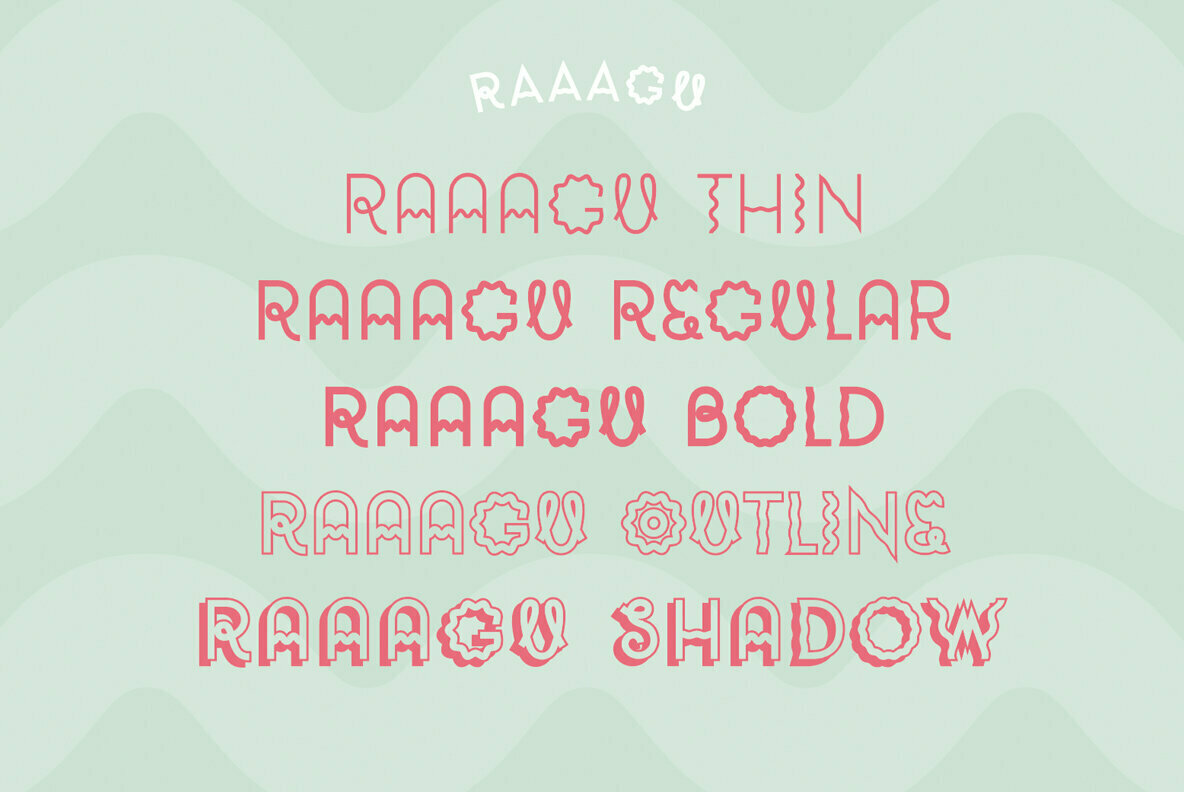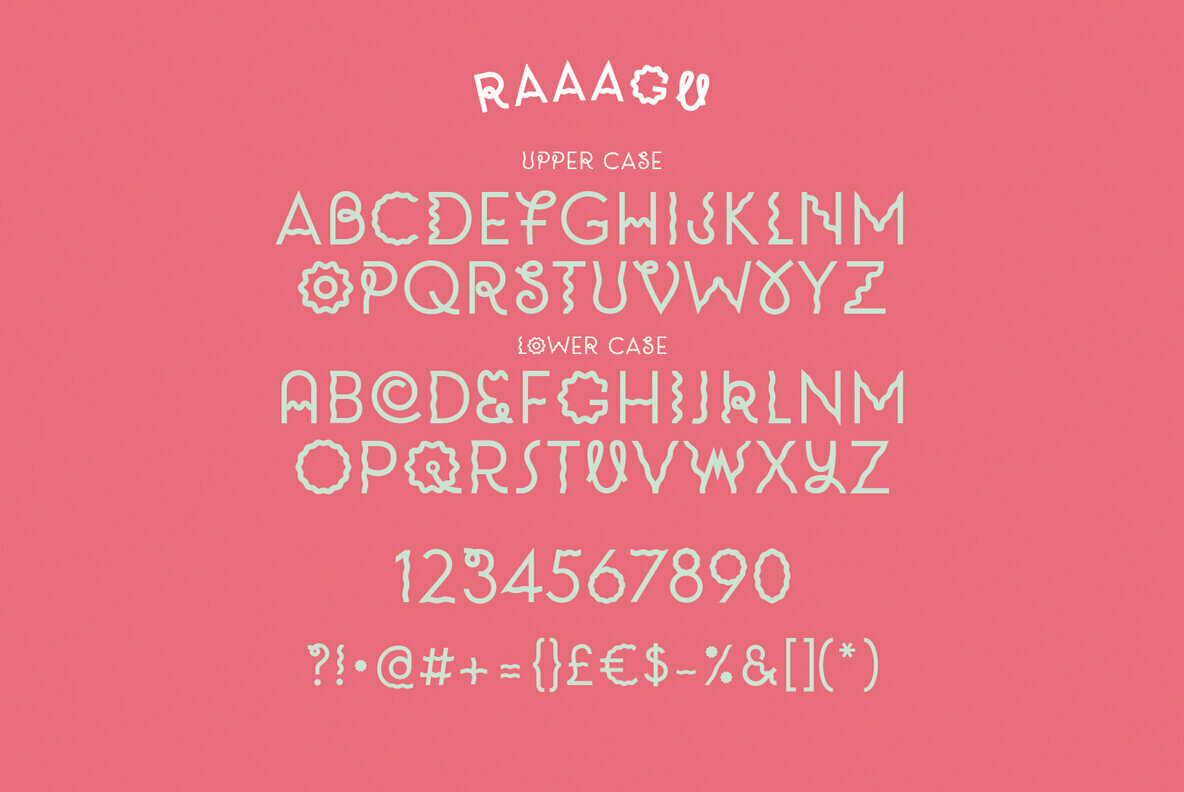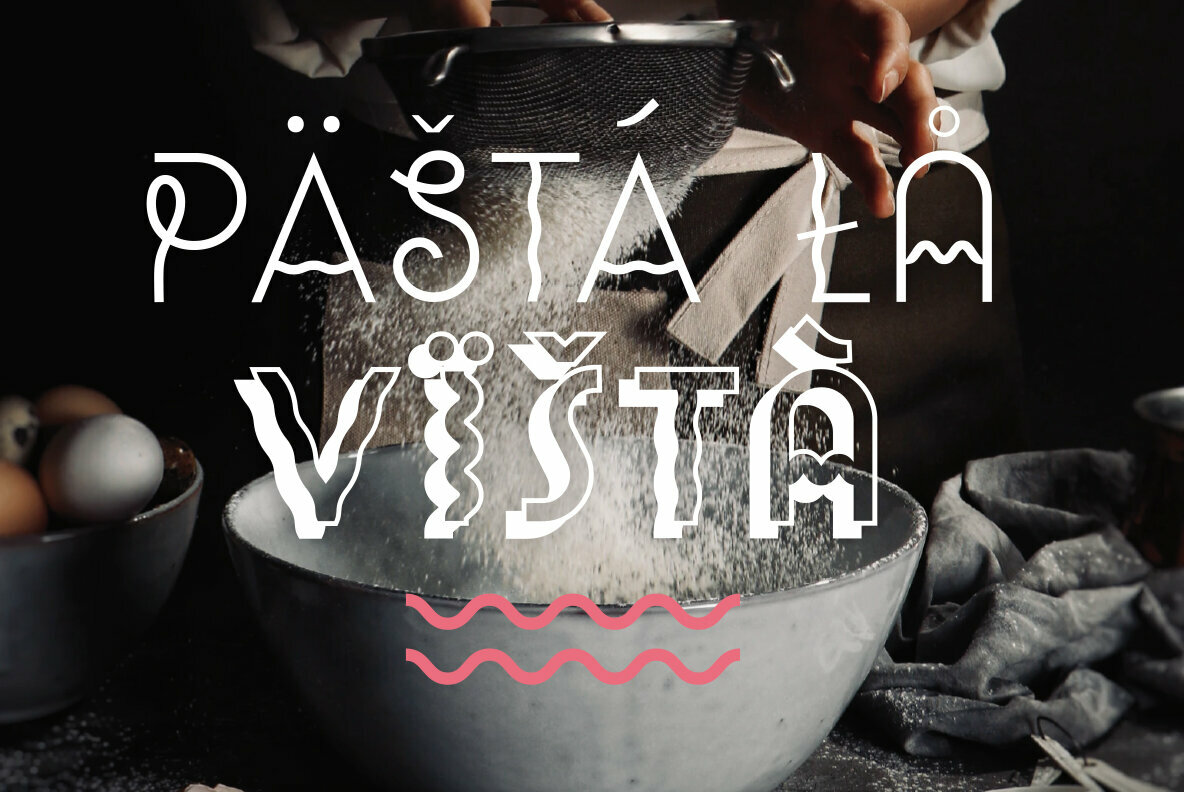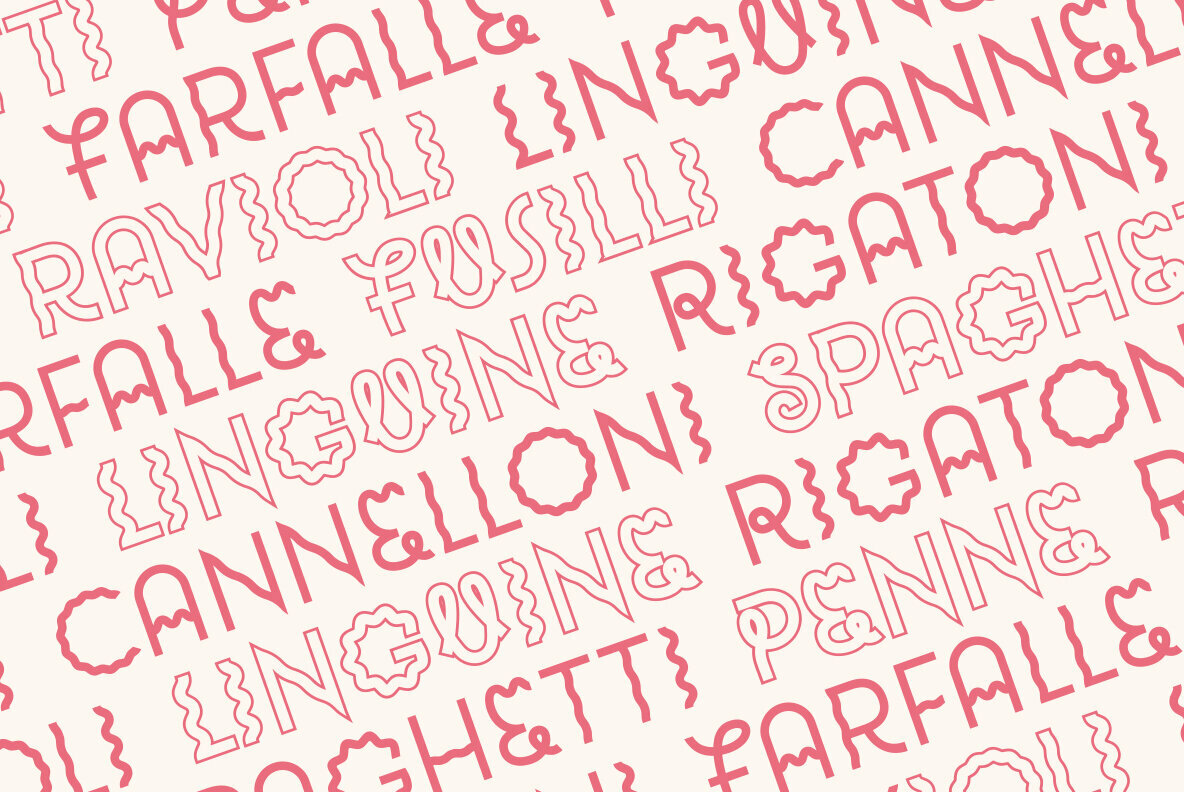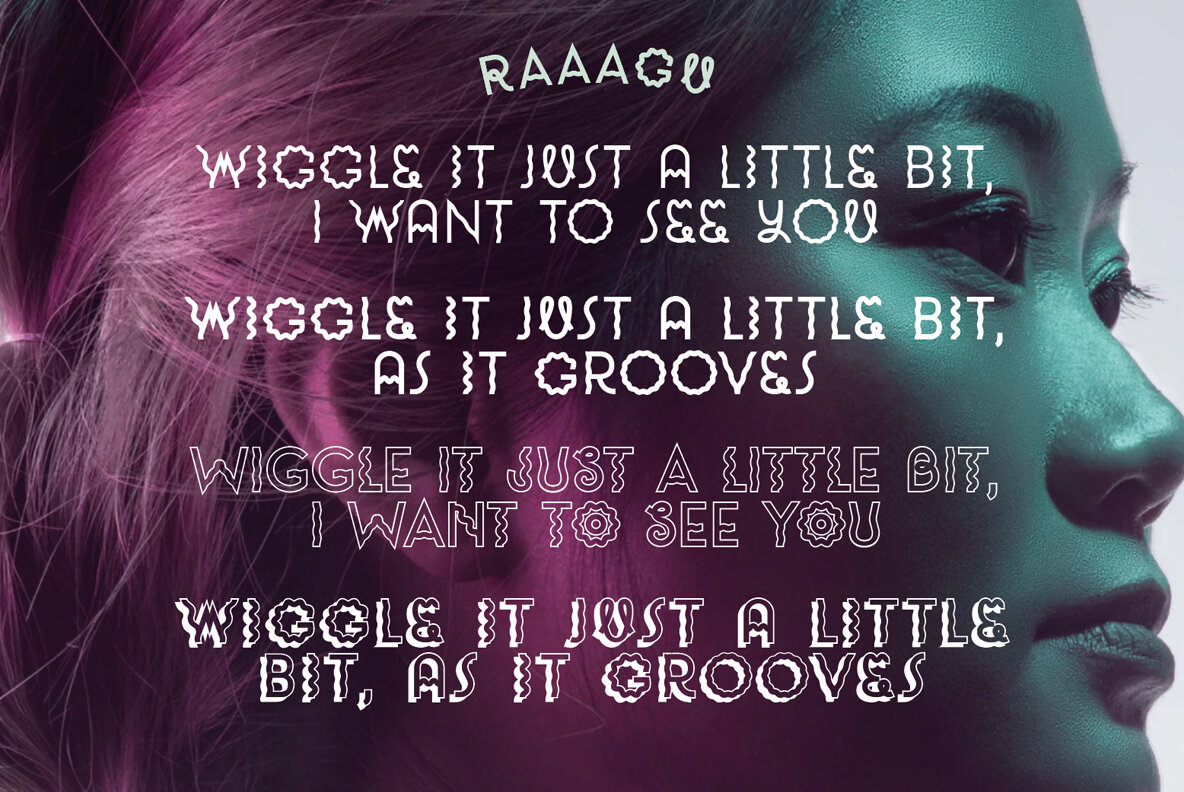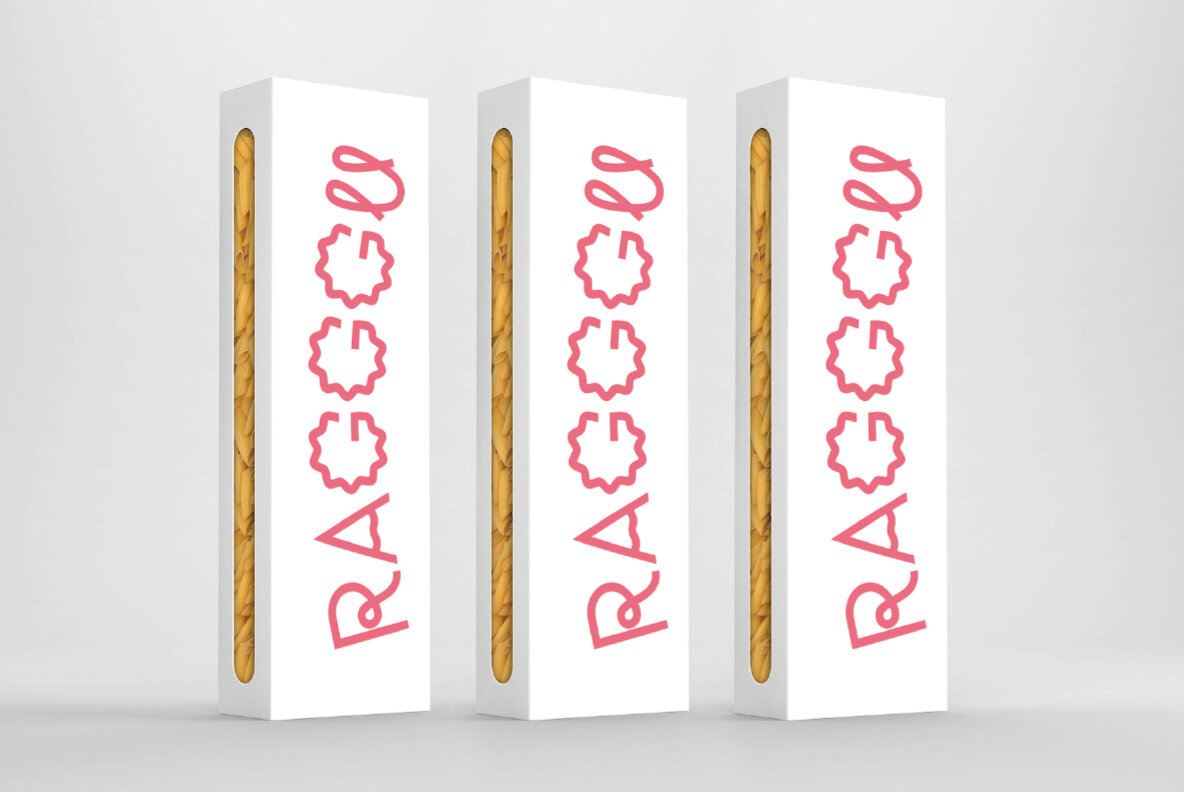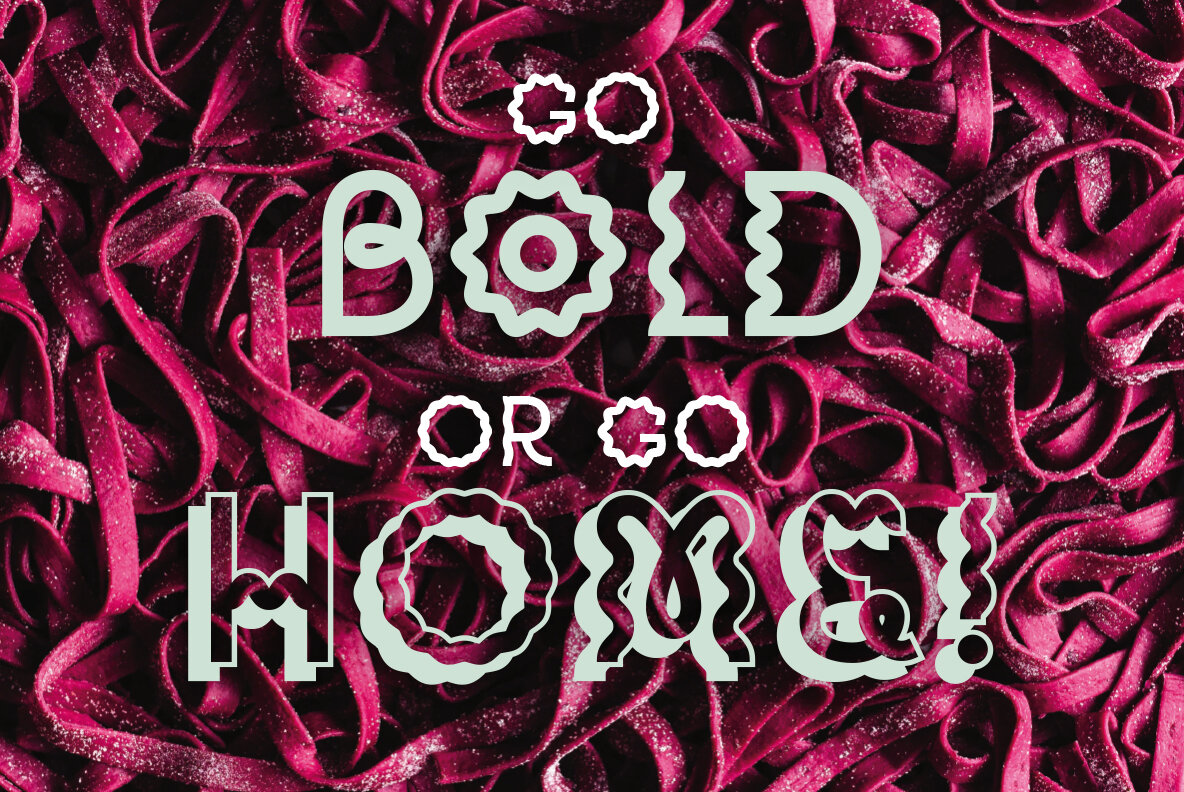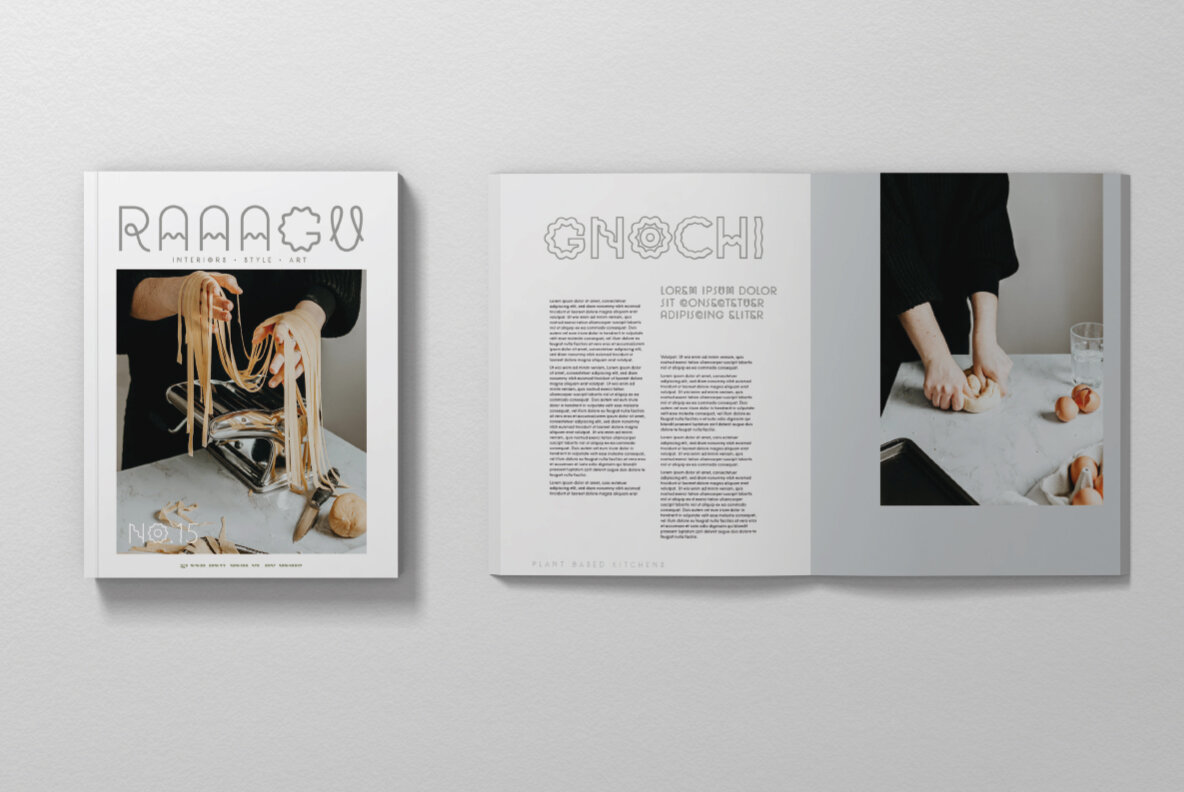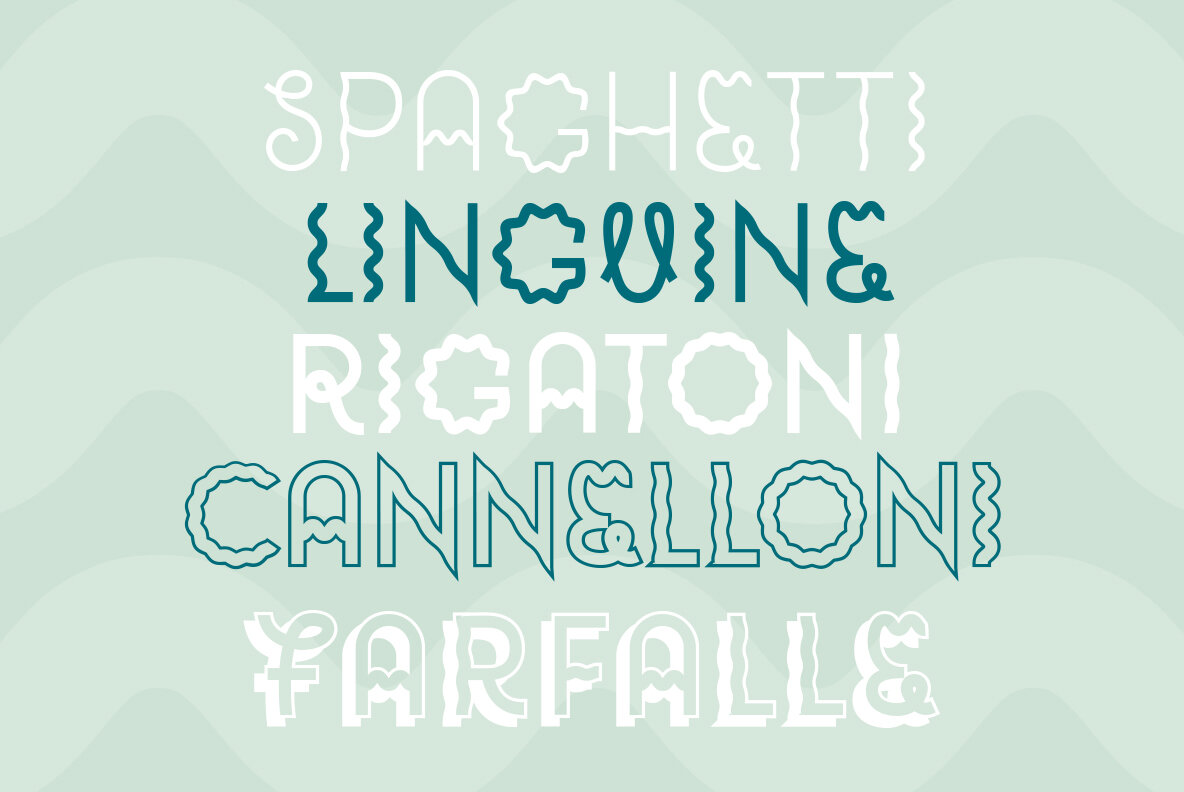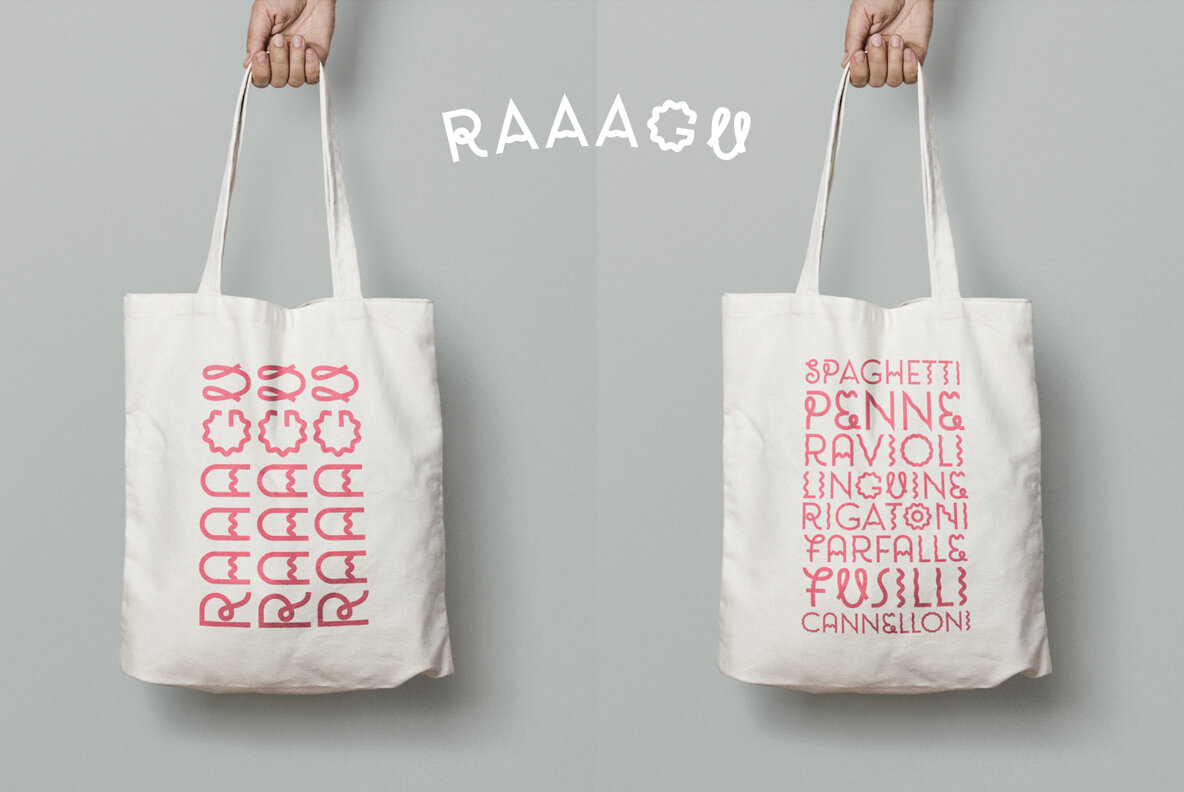
Raaagu Font
Raaagu is a super saucy new font. Wobbly and random, wiggly and quirky. It's perfect for cool new branding (meaty or plant based), new food packaging or bold poster work.